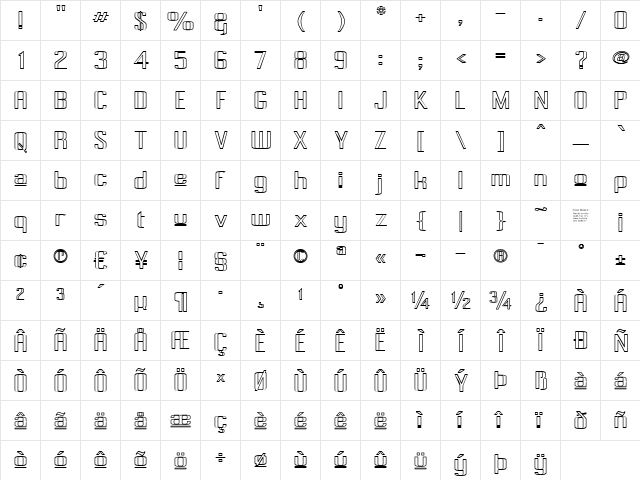
Pecot Upper Outline Regular
Design Context for Pecot Upper Outline Typeface
Pecot Upper Outline brings ornamental detail and strong personality to headlines and identities, where visual impact matters more than quiet functionality.
Font Pairing: Pair with a clean neutral sans-serif for body copy to let Pecot Upper Outline's character lead without overwhelming the composition.
Pro Tip: Use Pecot Upper Outline exclusively at display sizes — it was designed to be seen, not read at length. Let a neutral companion handle body copy.